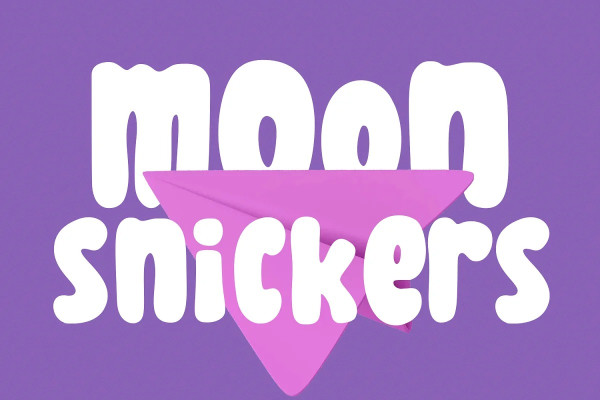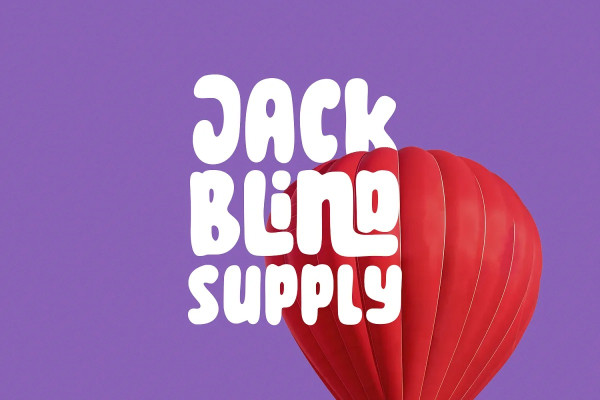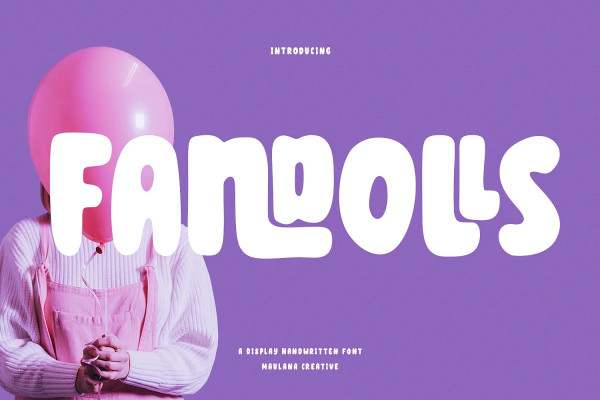
Fandolls Display Font
Fandolls Display Font is a bulb casual handwritten font. With bold stroke, fun character with a bit of ligatures and alternates. To give you an extra creative work. Fandolls Display font support multilingual more than 100+ language. This font is good for logo design, Social media, Movie Titles, Books Titles, a short text even a long text letter and good for your secondary text font with sans or serif. Make a stunning work with Fandolls font.